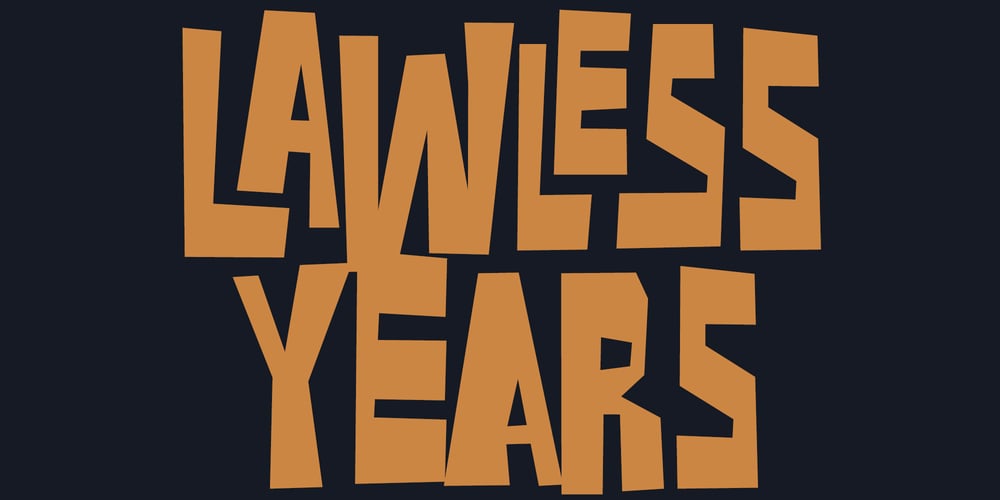
Lawless Years Font Family was designed by Sawyer Hume and published by Fontasmic. Lawless Years contains 1 styles and family package options. Lawless Years was inspired by the lettering on a pulp paperback titled “The Dry and Lawless Years”, but it is a lettering style seen of numerous vintage pulp paperbacks. The ligature feature enables a constant toggle between Capital and lowercase (alt caps) letters, no matter what you type, to give a randomized look. the stylistic alternates feature enables numerous nested ligatures that can be peppered into typesettings automatically when enabled.